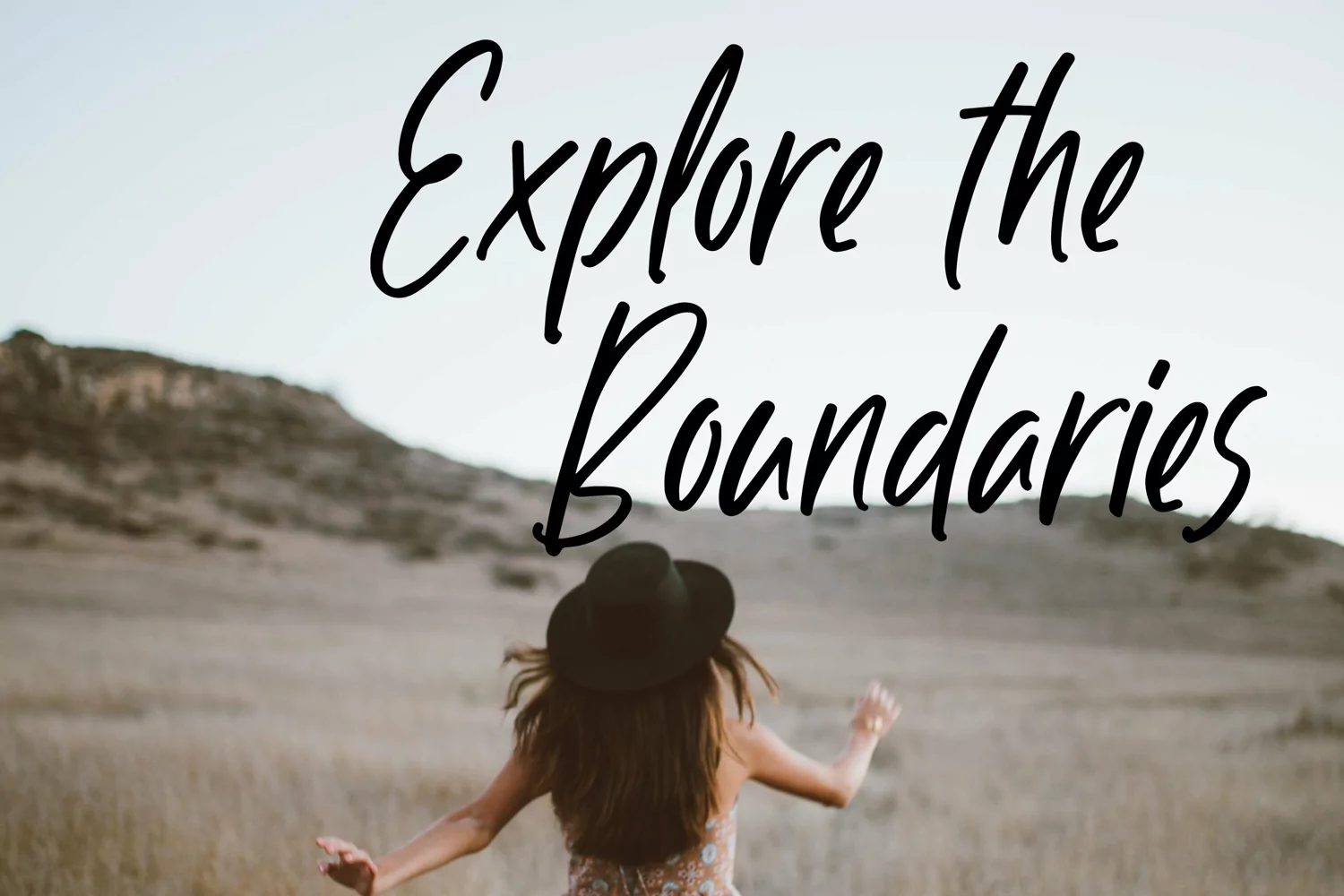
Kaleidoscope - Handdrawn Beauty Font
Kaleidoscope - Handdrawn Beauty Font that contain lowercase, uppercase, symbol, and also support multi language. There’s a lot ligatures in this font. This Font also comes with ligatures, alternates and many more. this font suitable for fashion, branding, catalog and other design what you want.